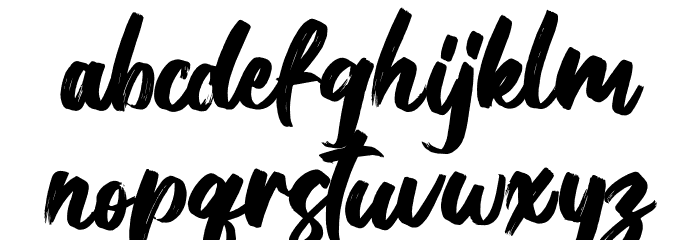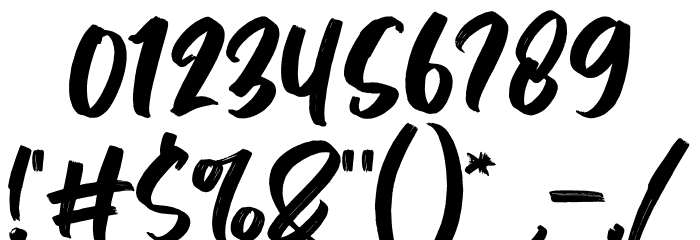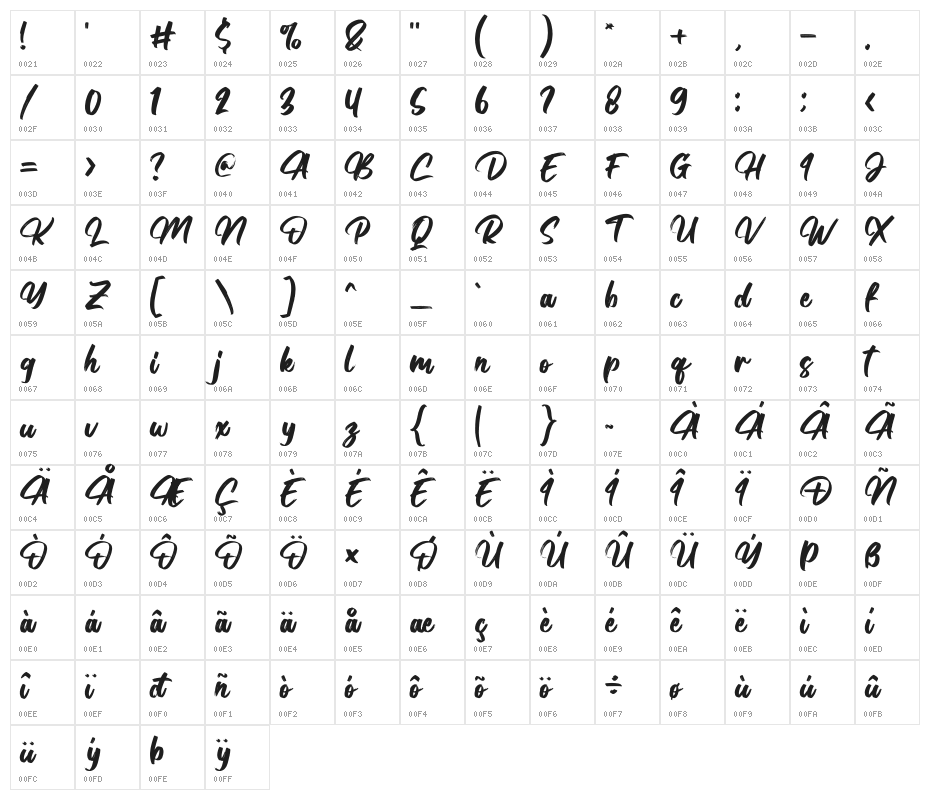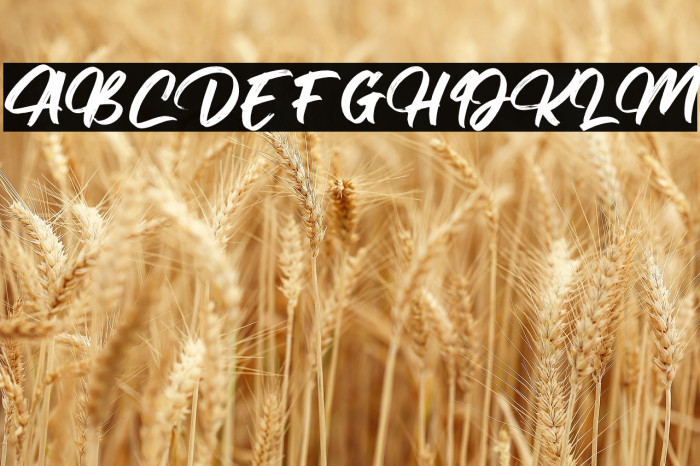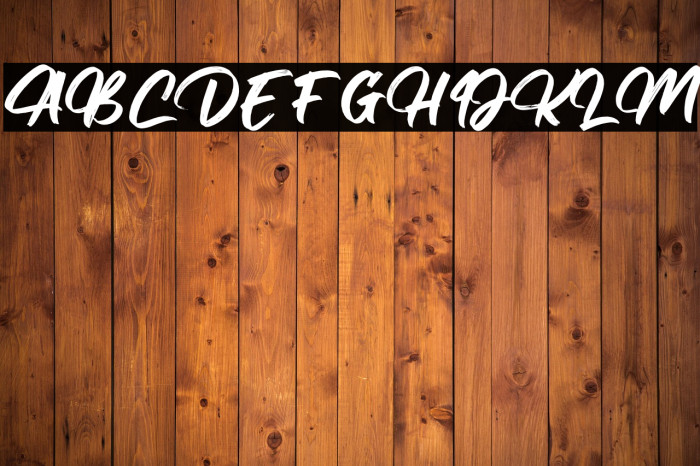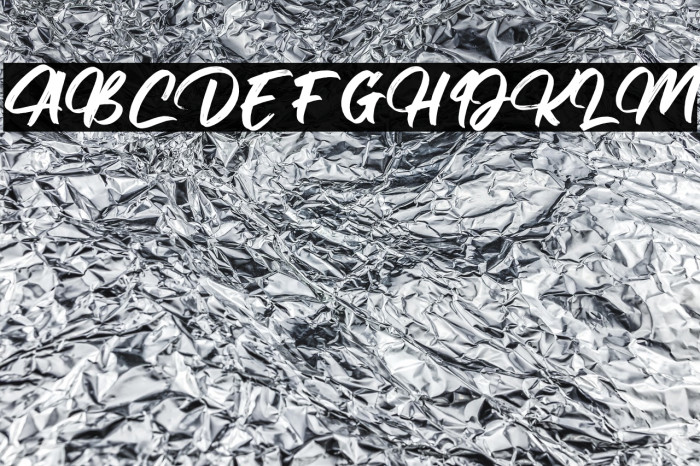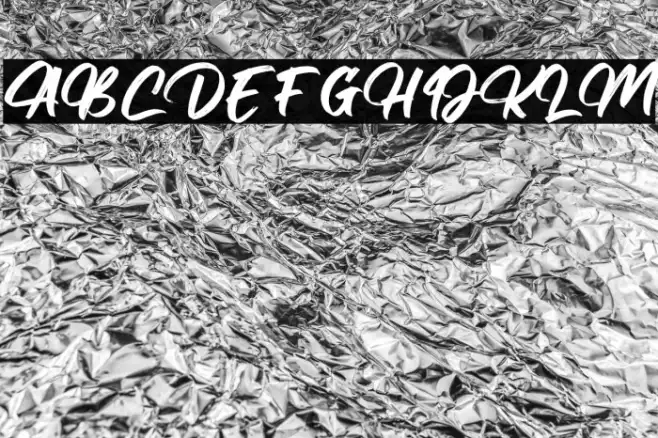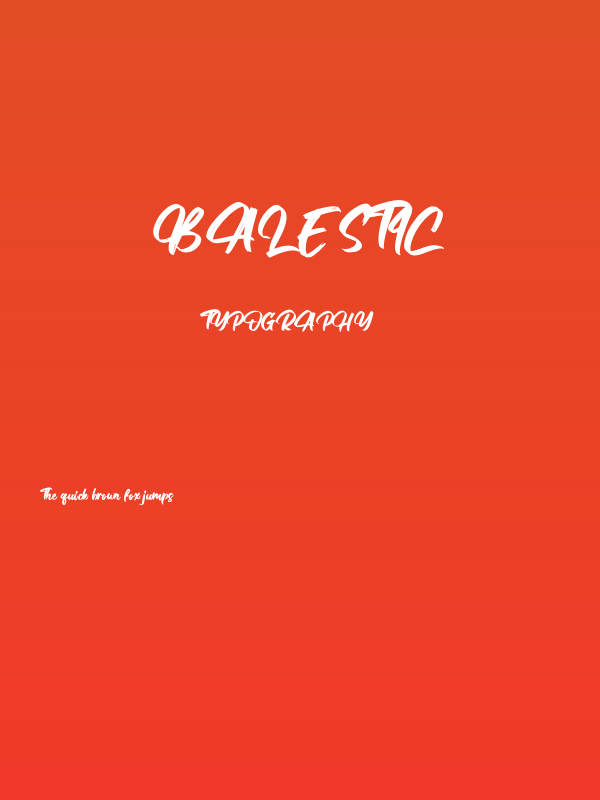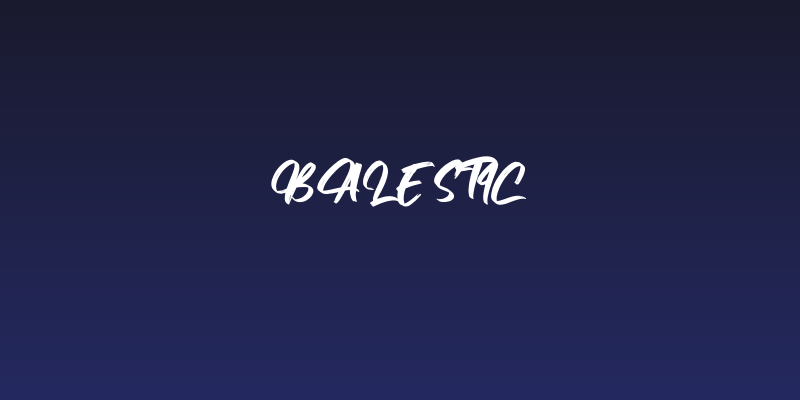
Balestic Font
This font features a bold, brush script style with a dynamic and energetic appearance. The letters are crafted with a hand-painted look, showcasing thick and expressive strokes that vary in width, giving it a lively and artistic feel. The uppercase letters maintain a consistent height, while the lowercase letters exhibit a playful bounce, adding to its casual and informal charm. Numbers and special characters are designed with the same brush-like quality, ensuring a cohesive look across all glyphs. The overall impression is one of creativity and spontaneity, making it ideal for projects that require a personal and artistic touch.
A bold, brush script font with dynamic, hand-painted strokes.
- Font: Balestic
- Proposed Projects: Ideal for branding, posters, invitations, and any design requiring a creative and artistic flair.